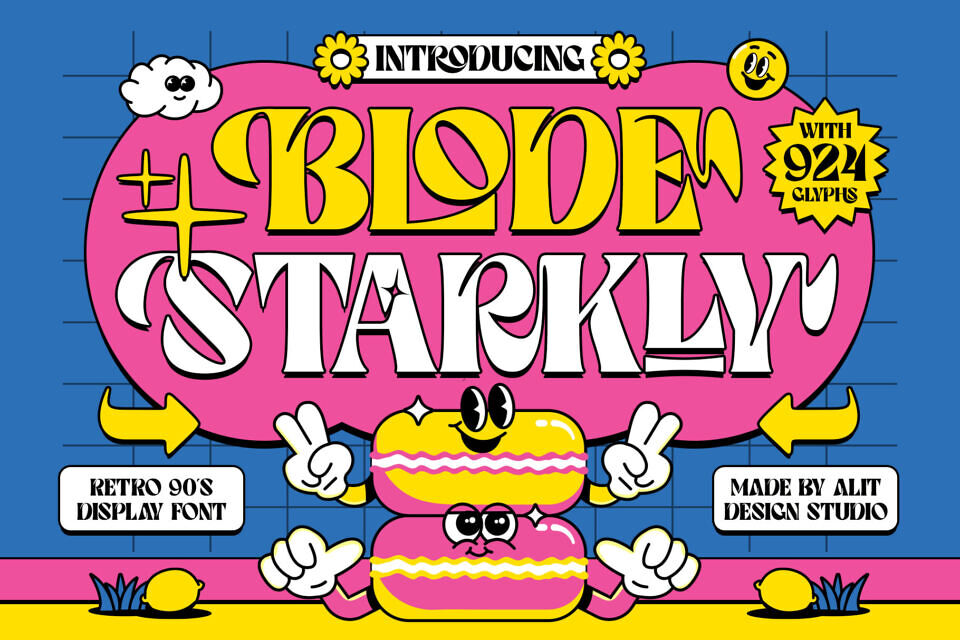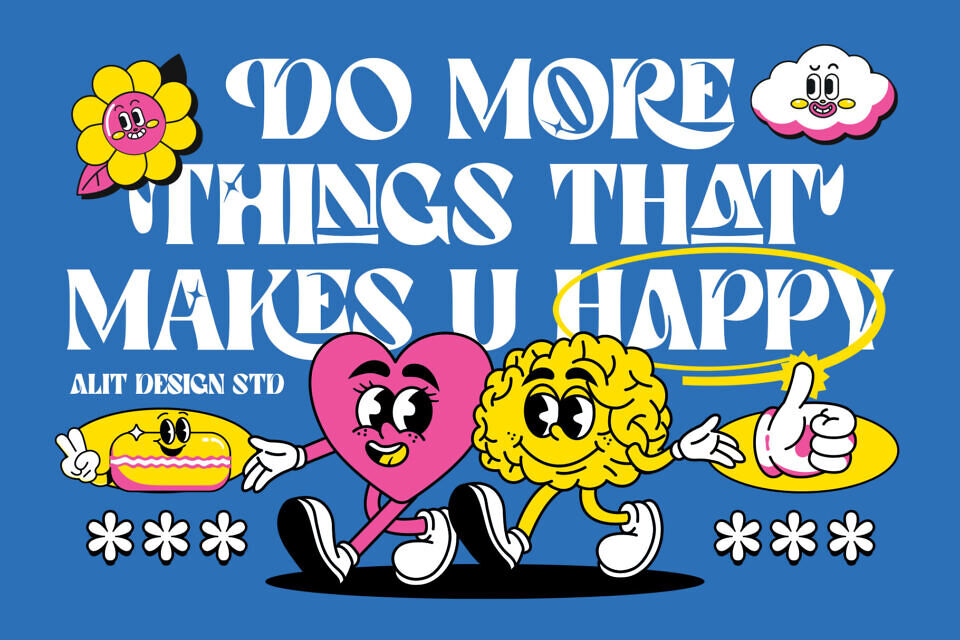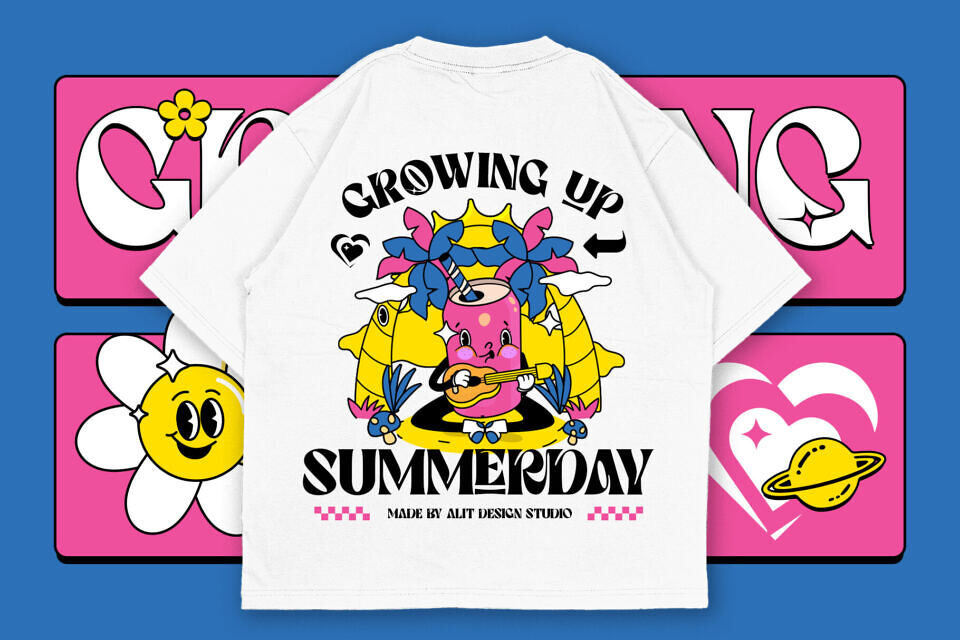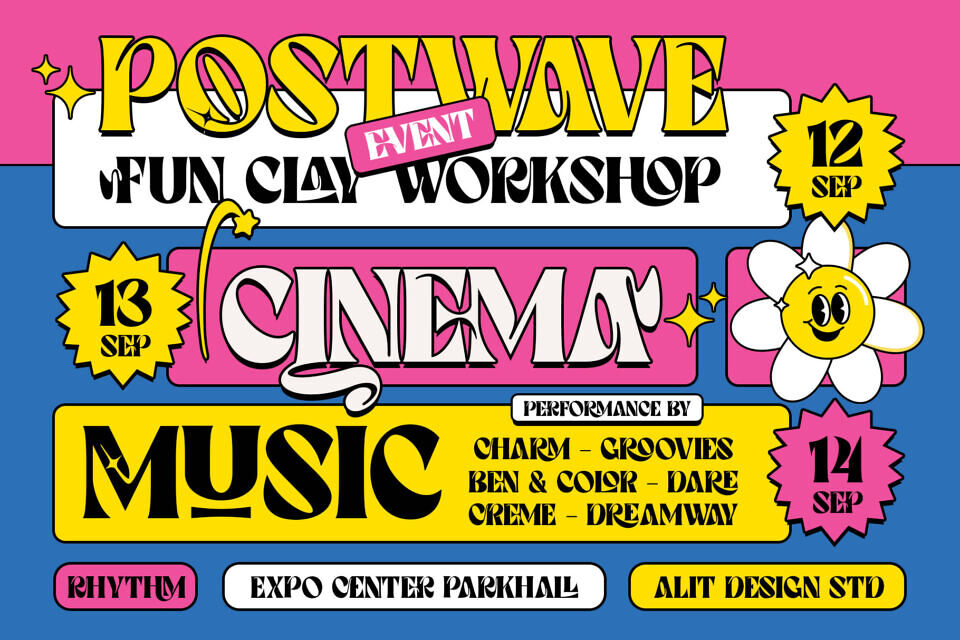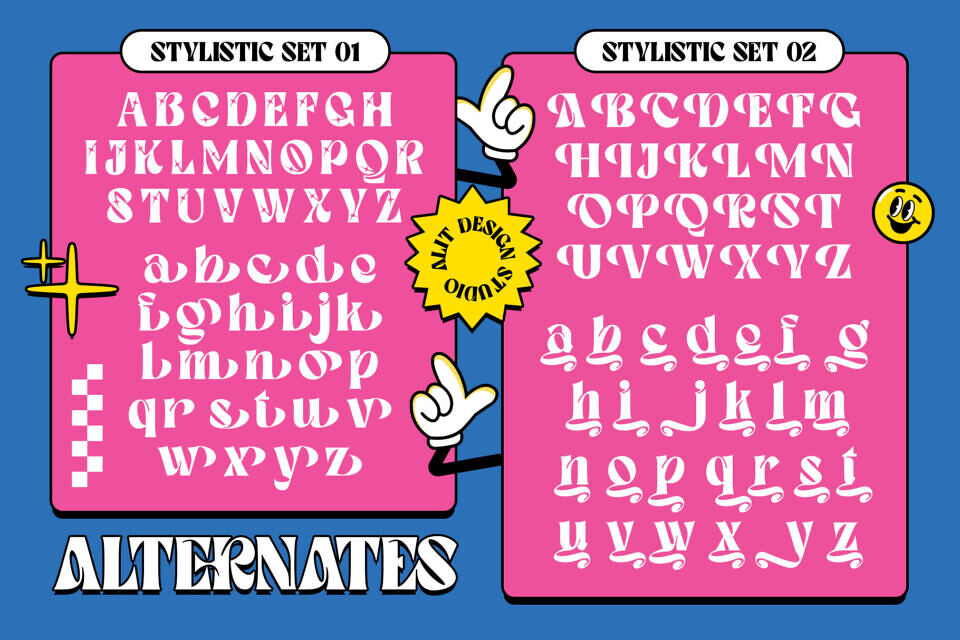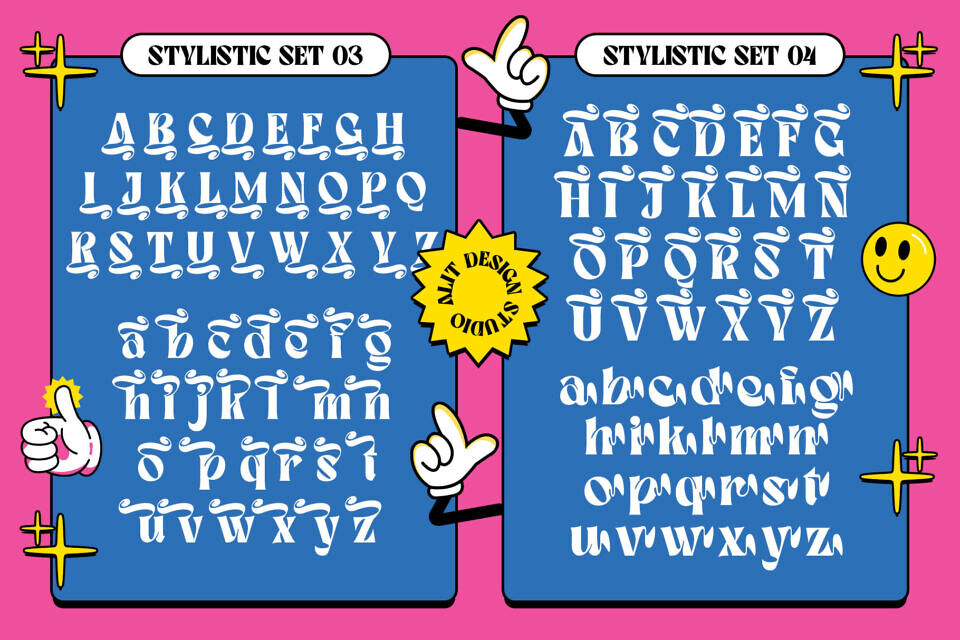
Blode Starkly Font
Blode Starkly offers bold, curvy forms, eccentric proportions, and a unique balance of retro and modern styles, making it perfect for branding, posters, merchandise, and social media. Its stylistic sets, ligature library, and bonus dingbats provide endless customization options.
This font embodies the “Retro-Futuristic Hippie” and “90s Psychedelic” vibe, perfect for popular platforms. With its versatility, massive 924 glyphs, and fun personality, it’s ideal for various designs.